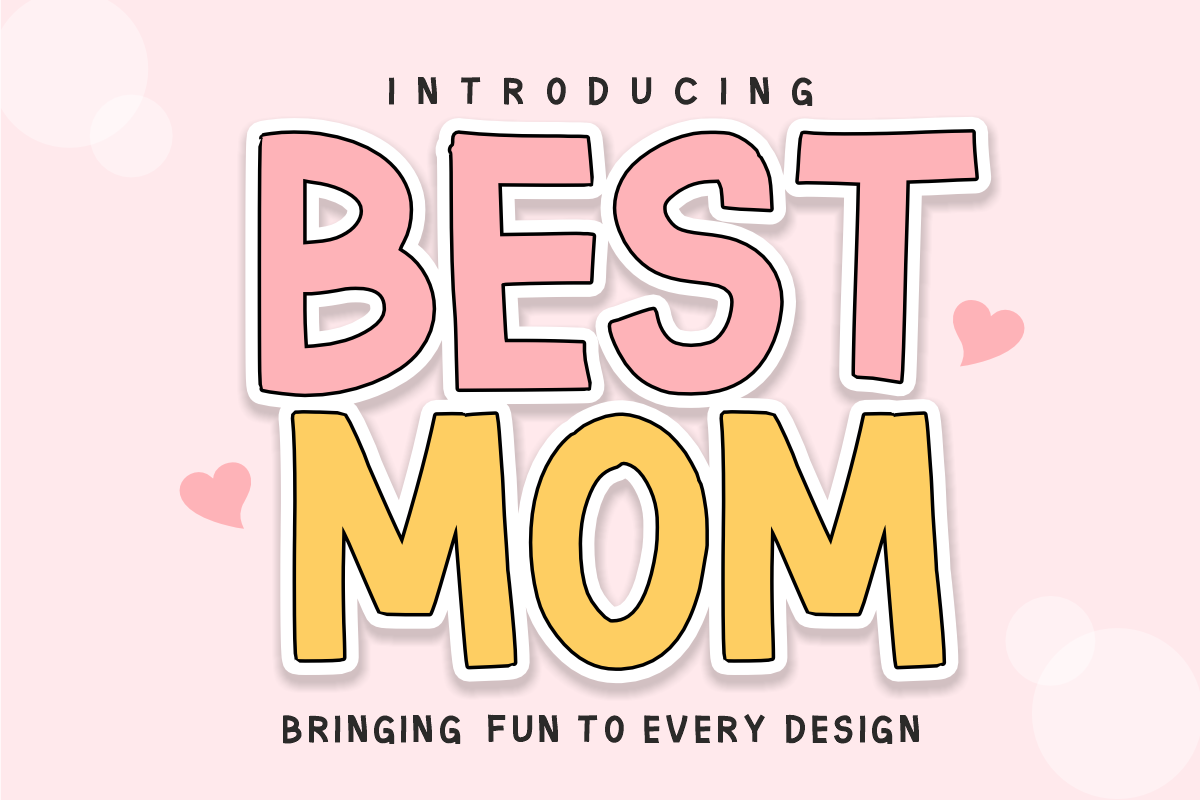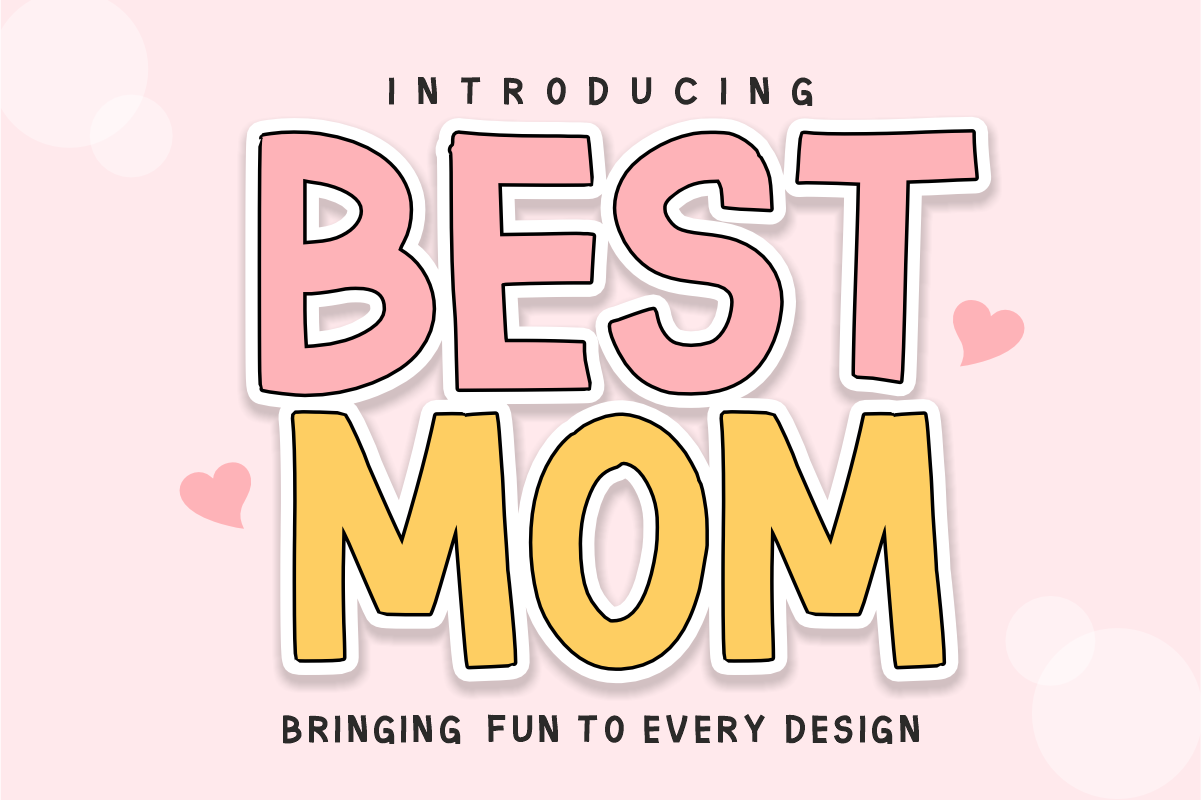
Best Mom - Hand-Drawn Display Font
Best Mom - Playful Hand-Drawn Display Font
Celebrate warmth, family, and creativity with Best Mom! True to its promise of "bringing fun to every design," this charming, hand-drawn display font features chunky, rounded letterforms that inject instant joy and personality into your layouts.
Engineered with an approachable, casual bounce and high visual legibility, Best Mom is the ultimate choice for lifestyle creators, family-centric brands, and seasonal marketing campaigns. It balances a lighthearted, sweet aesthetic with professional design flexibility, making your headlines truly stand out.
All-Caps Character Set (Chunky, playful uppercase letters with a hand-drawn feel)
Numbers & Basic Punctuation (Essential, simple symbols included)
Mother’s Day Campaigns & Seasonal Greeting Cards 💝
Mompreneur Branding & Family-Centric Creative Logos 🎨
Social Media Marketing & Engaging Influencer Content 📱
Children's Product Packaging & Whimsical Label Design 📦
Vibrant Apparel Design & Lifestyle Merchandise 👕